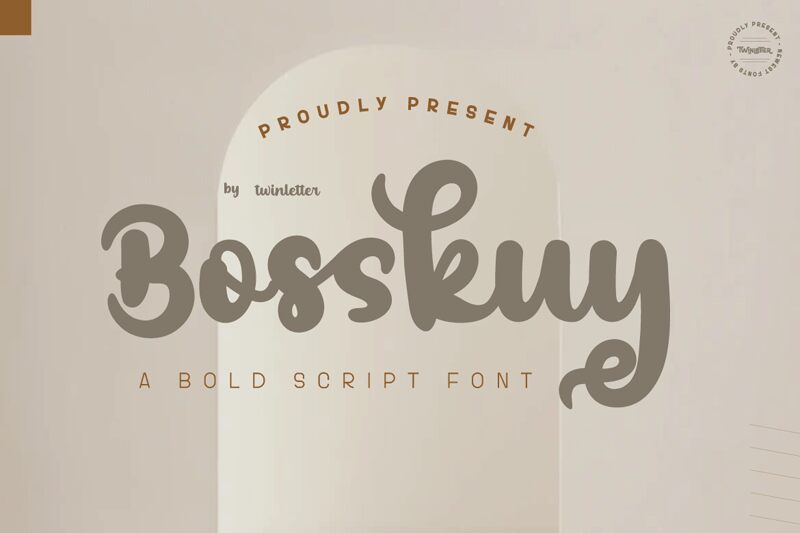
Bosskuy Personal
Bosskuyis a gorgeous, cursive and thick lettered handwritten font, crafted to give your headlines and logotype projects a stylish touch. This font reads strong, confident, and dynamic and can add tons of nostalgic characters to your designs.
This font is designed with a natural touch of handwriting which is refined to create a portion and composition that suits your needs. So this font is suitable for craft, childrens writing, adventure posters, food banner titles, wedding invitations, product packaging logos, quotes, social media page covers, furniture banner headlines, book covers, and much more.